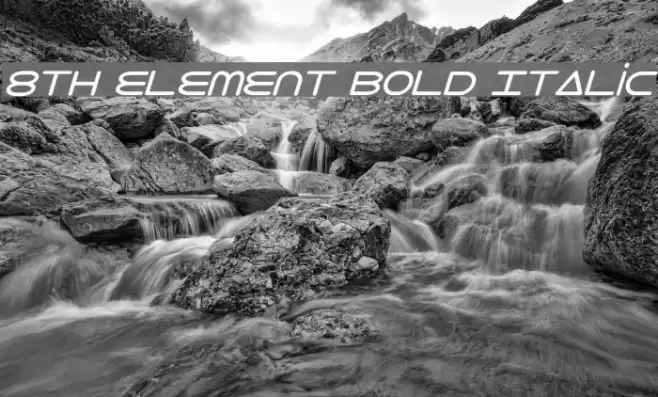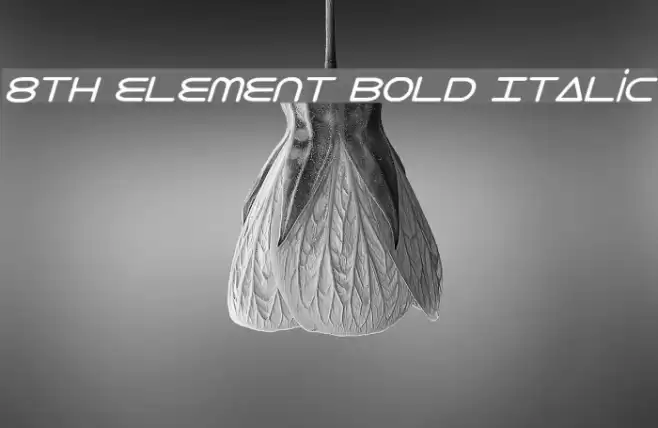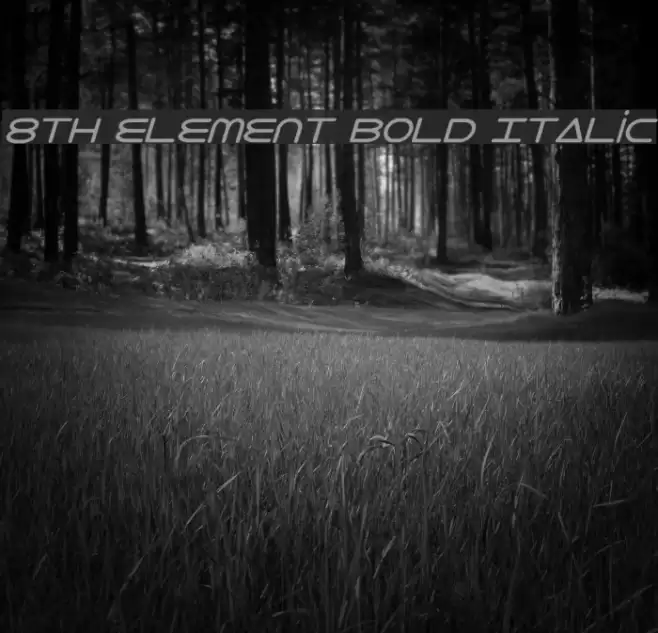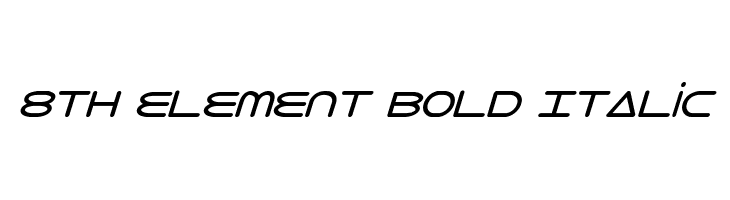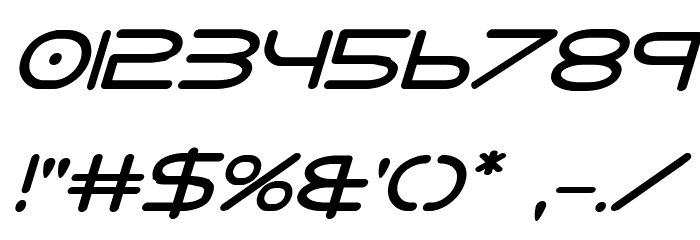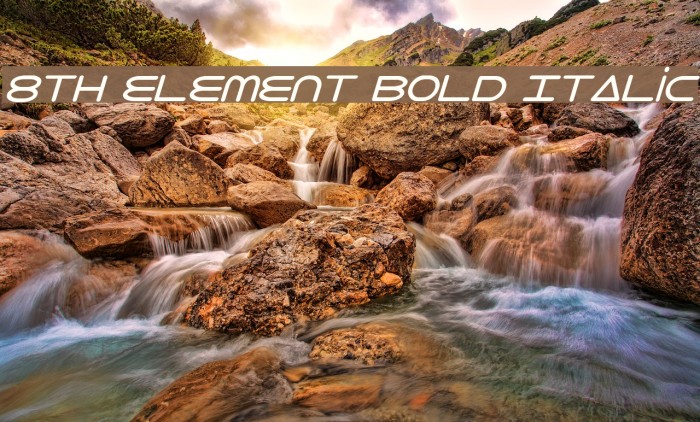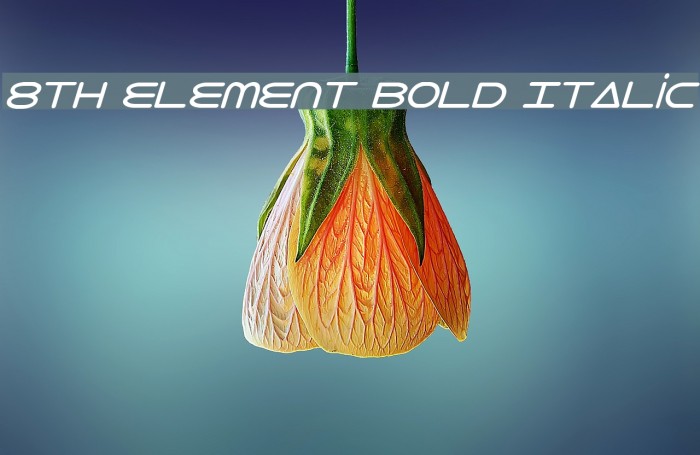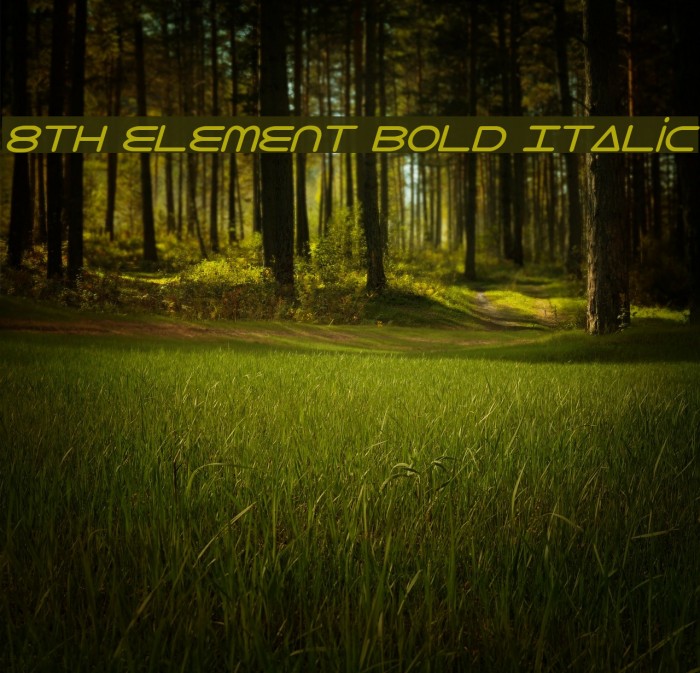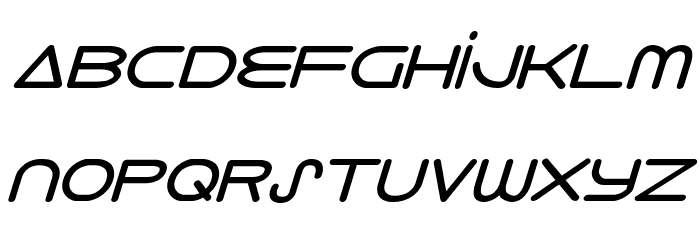
8th Element Bold Italic Font
8th Element Bold Italic Description
This font features a futuristic and sleek design with a distinct italic slant, giving it a dynamic and forward-moving appearance. The characters are bold and rounded, with a consistent stroke width that maintains a clean and modern look. The uppercase and lowercase letters share a similar style, enhancing uniformity. The numerals and special characters are designed to match the overall aesthetic, providing a cohesive visual experience. The font's unique style makes it stand out, suitable for projects that require a modern and innovative touch.
A bold, italic, futuristic font with rounded characters and a sleek design from Uncategorized fonts.
- Proposed Projects: Ideal for technology branding, sci-fi movie posters, video game titles, and modern advertising campaigns.
- Overall Style: Futuristic